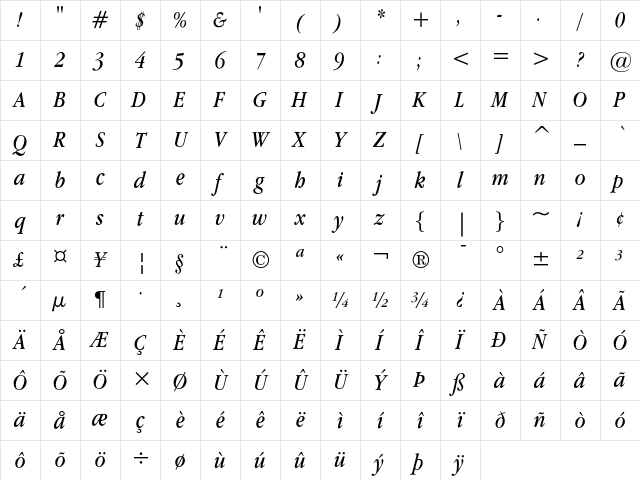
Apple Garamond Book Italic
Style: Book Italic
Apple Garamond Family
Design Context for Apple Garamond
Apple Garamond is a composed and adaptable typeface that performs quietly and consistently across a wide range of design contexts. The slanted form adds forward momentum and visual energy.
Pro Tip: Use Apple Garamond for emphasis, pull quotes, and subheadings where its slanted energy can add rhythm to the layout.